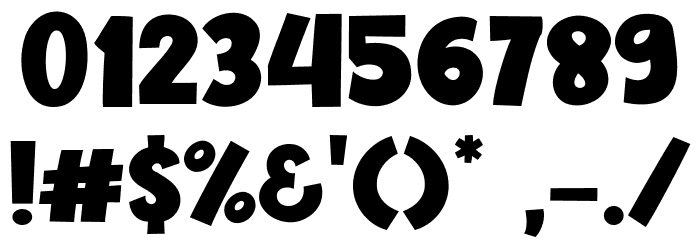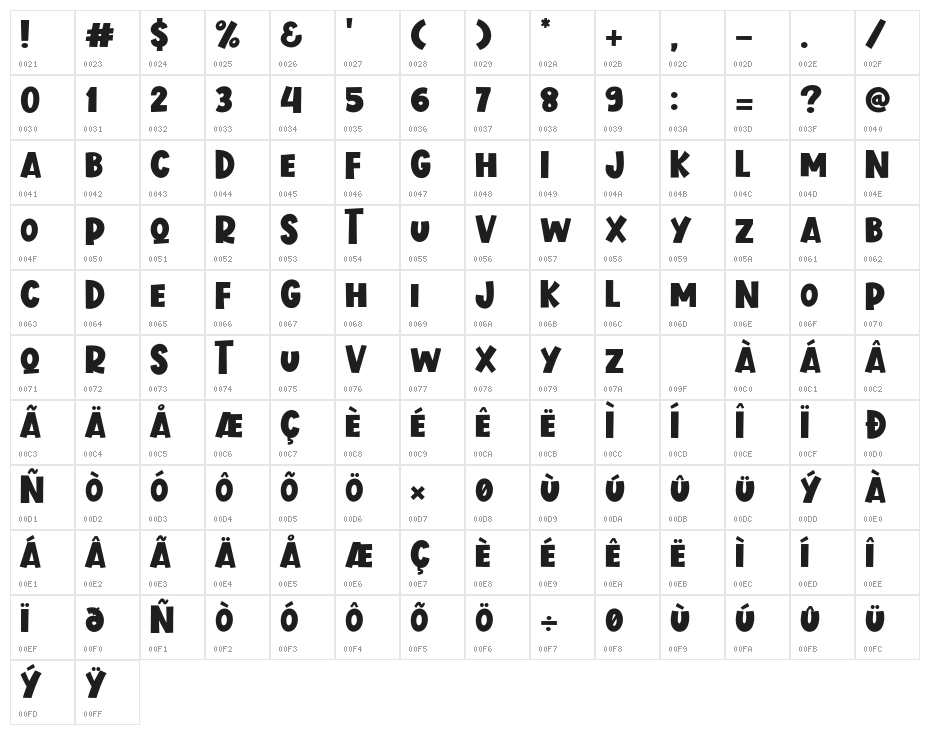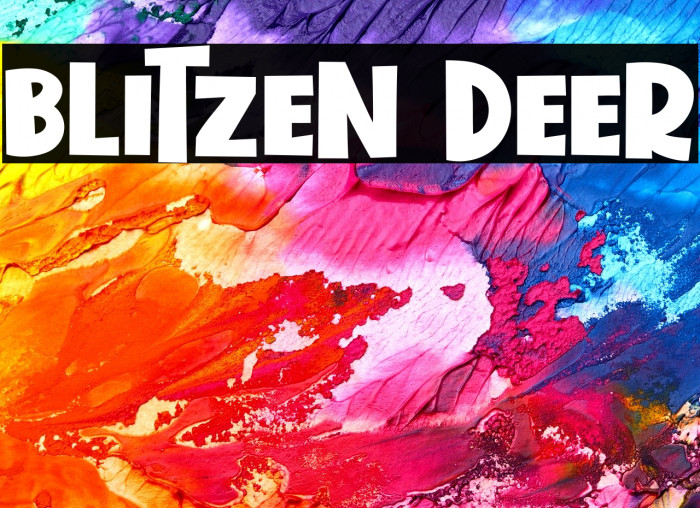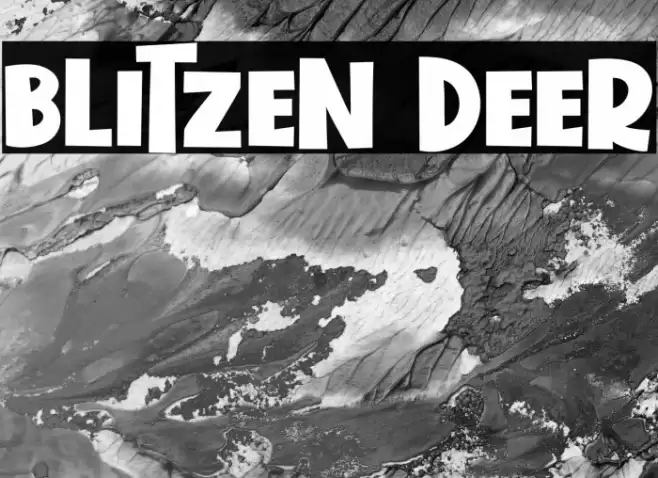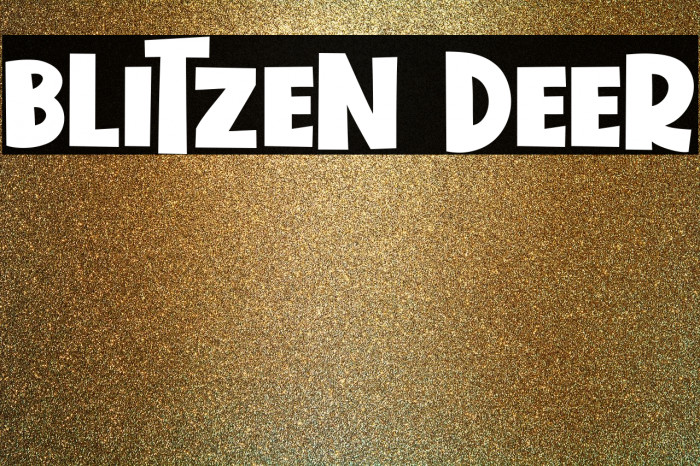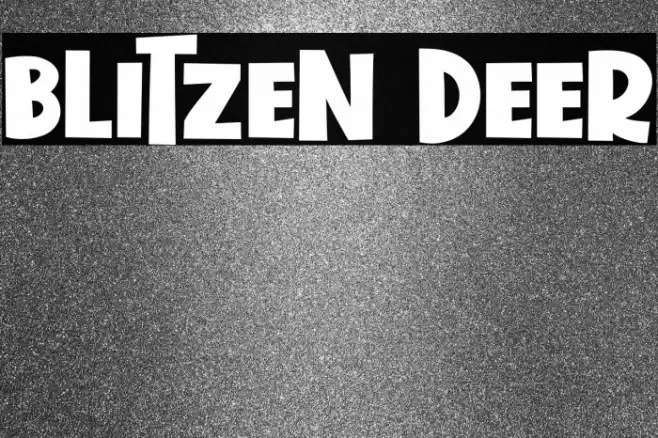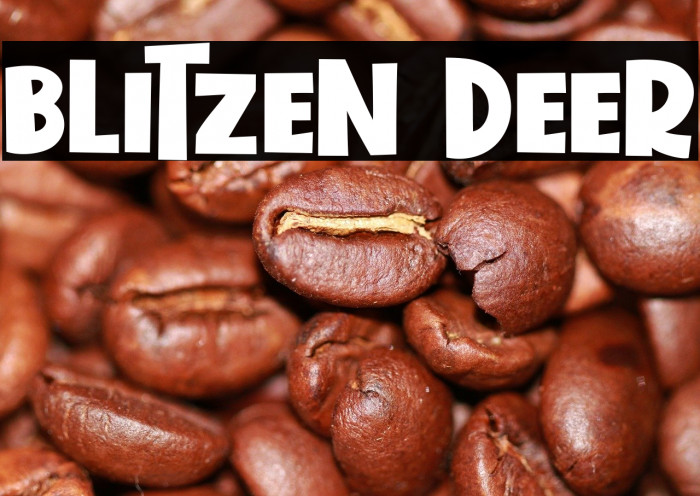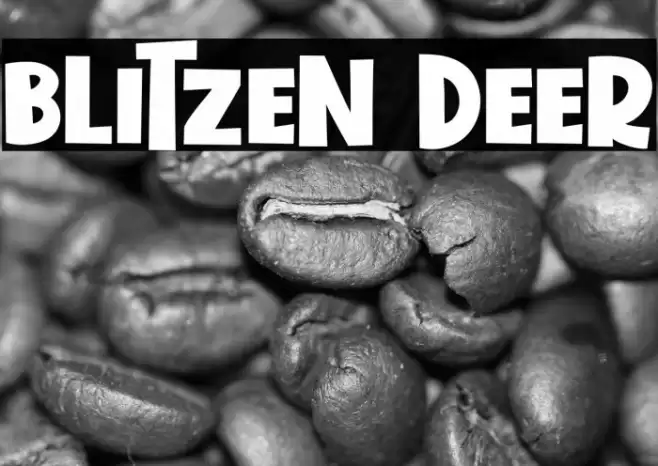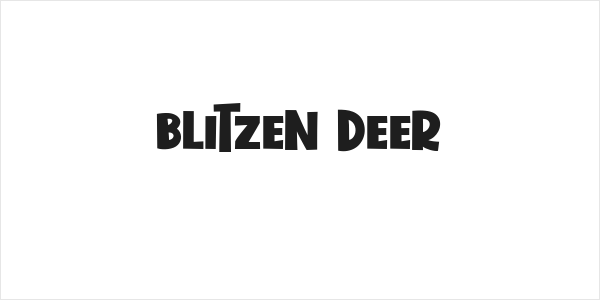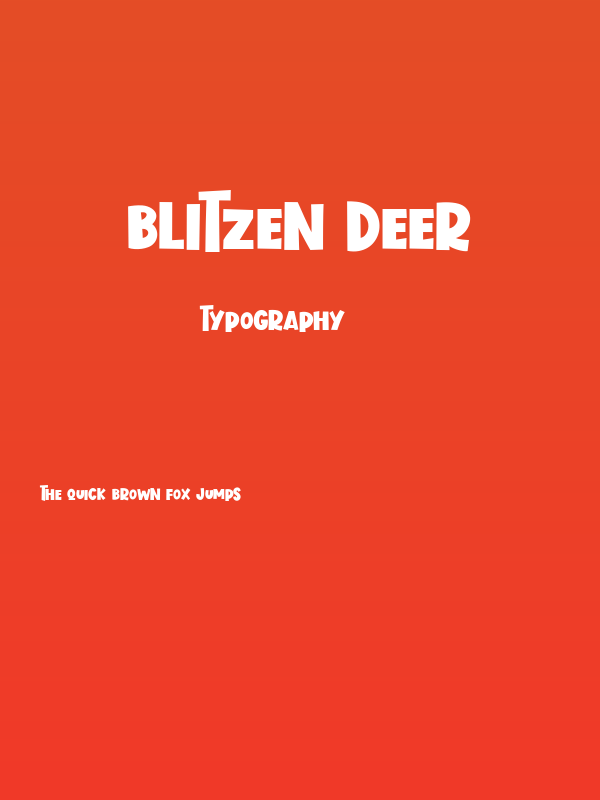
Blitzen Deer Font
Blitzen Deer Description
This font features bold, playful characters with a strong presence, making it ideal for attention-grabbing designs. The letters are thick and rounded, with a slightly irregular shape that adds a whimsical touch. The uppercase and lowercase letters maintain a consistent style, while the numbers and special characters are equally bold and expressive. The font's unique style is perfect for projects that require a fun and lively aesthetic, such as children's books, posters, or branding for playful products.
| Proposed Projects | Ideal for children's books, playful branding, posters, and any design needing a lively touch. |